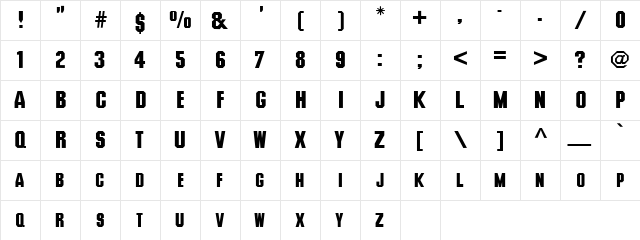
Deusex Medium Font Preview
Deusex Medium
Deusex Medium Font Details
Design Context for Deusex Typeface
Deusex offers clean, dependable letterforms without strong stylistic allegiance, making it a practical choice for designers who need flexibility.
Pro Tip: Use Deusex in both headline and body roles to test its range before committing to a single application.